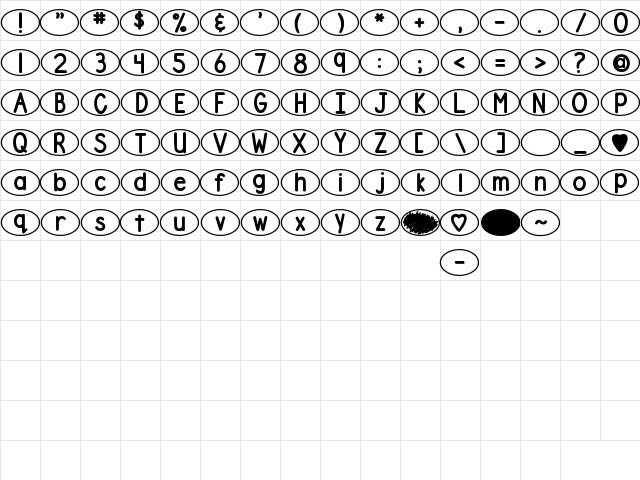
DJB Standardized Test Oval 2 Regular
Designer: Darcy Baldwin
Design Context for DJB Standardized Test Oval 2
DJB Standardized Test Oval 2 is a composed and adaptable typeface that performs quietly and consistently across a wide range of design contexts.